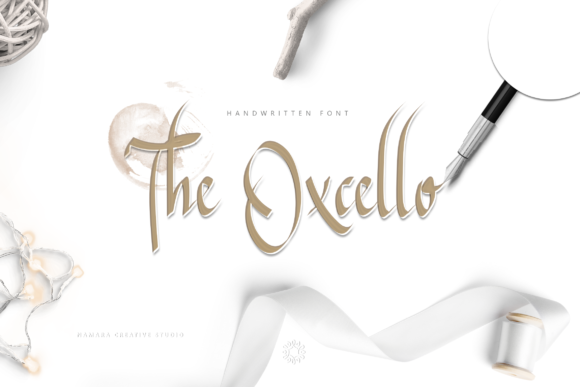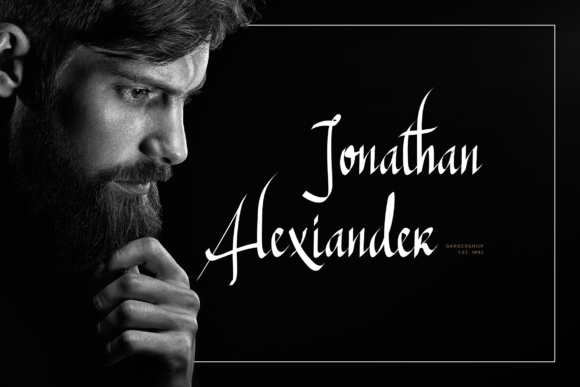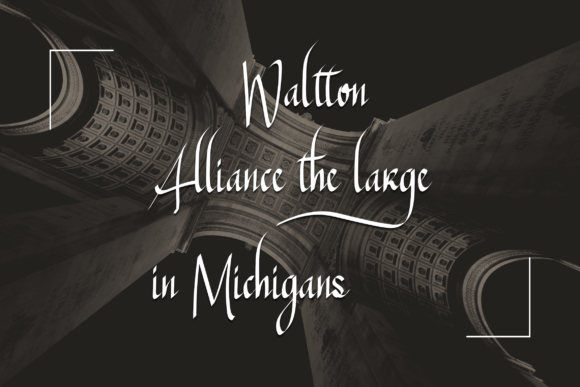
About The Oxcello Font
The Oxcello is a stylish script font. It has a natural flow and unique look. It will elevate a wide range of design projects to the highest level, be it branding, headings, wedding designs, invitations, signatures, logos, labels, and much more!